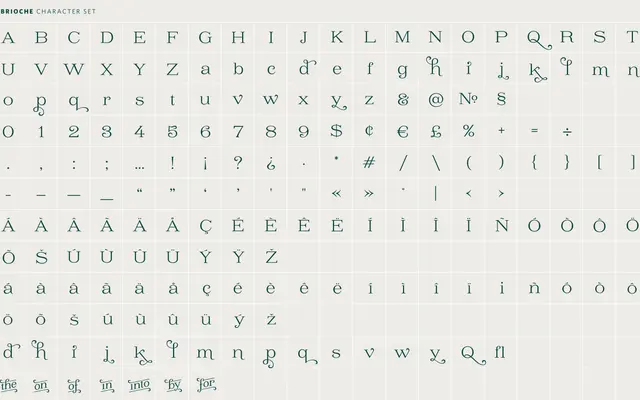
Brioche
Jessica Hische · Jessica Hische
A revival of 19th-century display type with added swash characters and a companion italic designed from scratch by Jessica Hische.
The roman draws from a handful of 19th-century specimens, augmented with swashy alternate characters that reflect Hische's lettering background. The italic is an original design rather than a sloped version of the roman. Suited to packaging, branding and editorial contexts that call for decorative flair without straying too far from historical precedent.
A revival of 19th-century display type with swash characters and a newly designed italic, placing it firmly in the decorative display serif tradition.